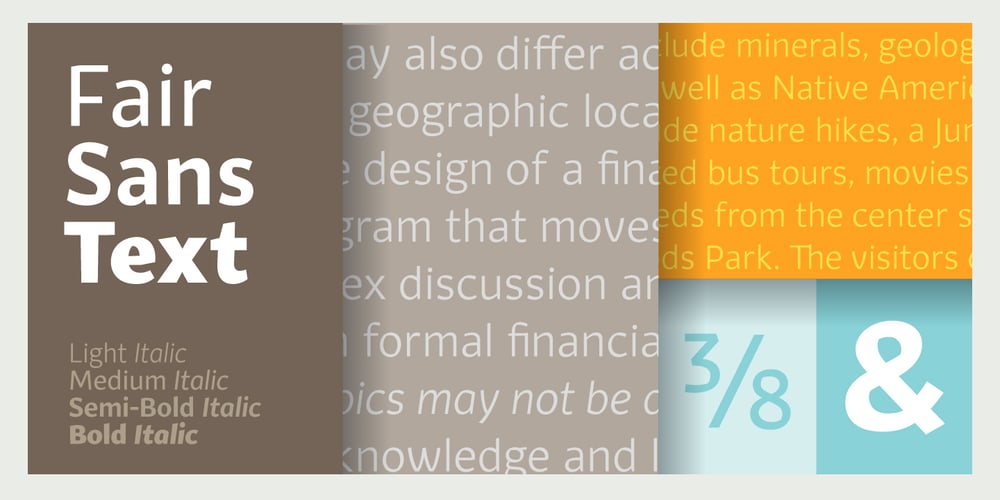
Fair Sans Text
Fair Sans Text font
Fair Sans Text Font Family was designed by Galen Lawson and published by District. Fair Sans Text contains 8 styles and family package options. Fair Sans Text is the natural follow-up to the popular Fair Sans – now a text family based on the calligraphic structure and casual construction of its predecessor. As the name implies, Fair Sans Text has proportions for longer text settings, strong headlines, and everything in between. Lively and casual, FST is four weights with true italics. Also included are small caps, old style and tabular numerals, and multi-language glyphs.